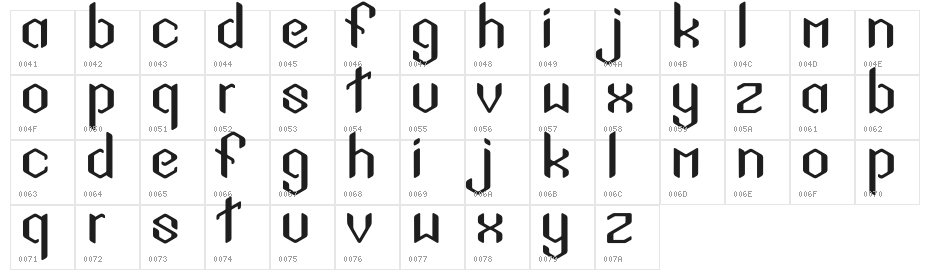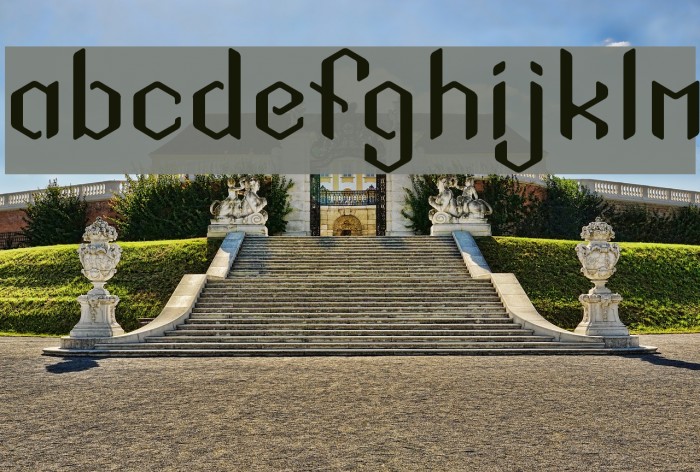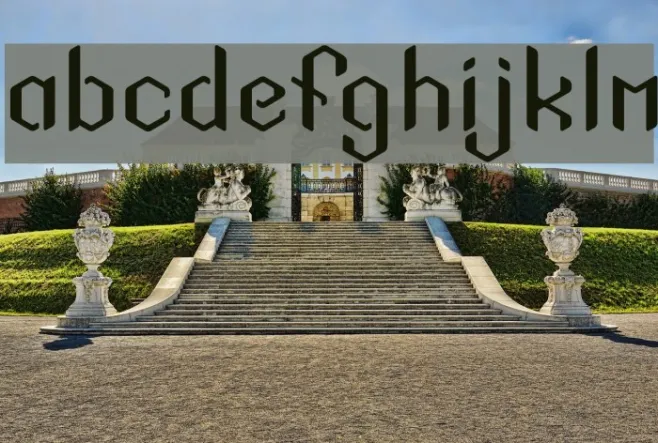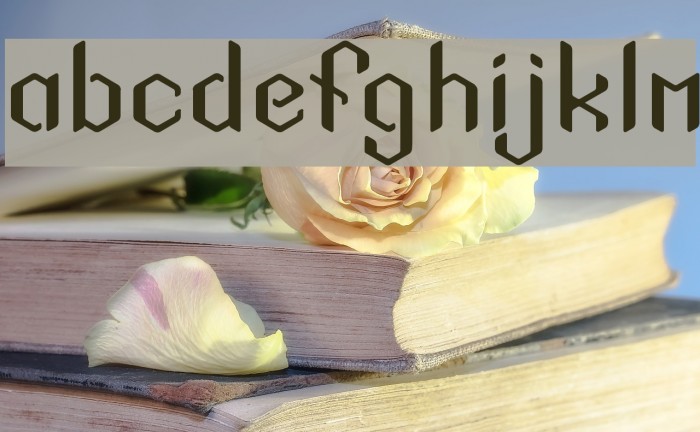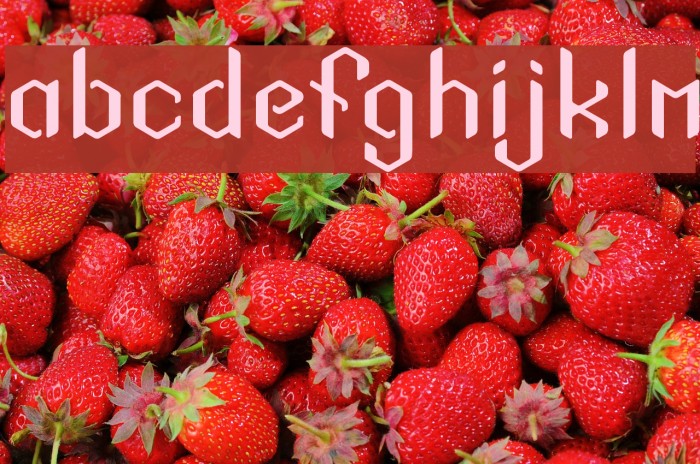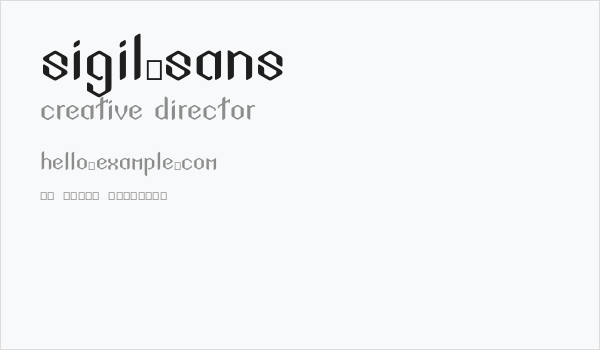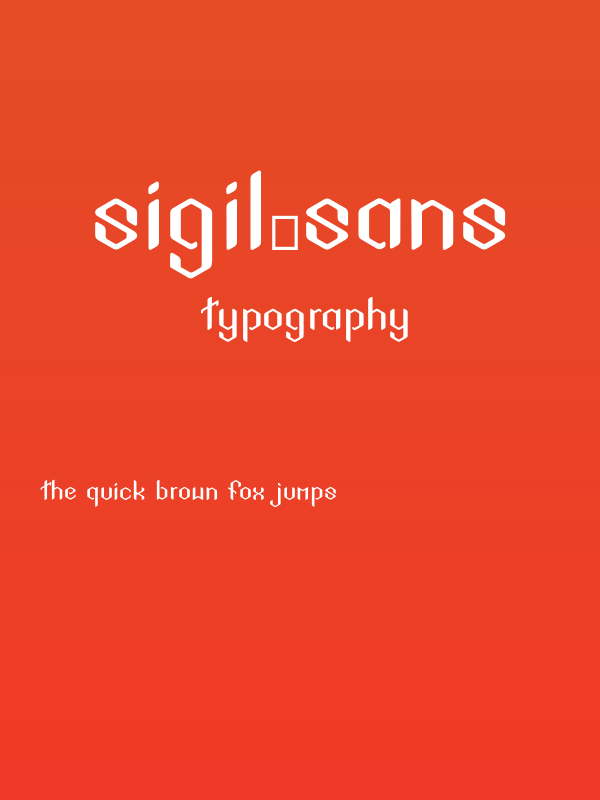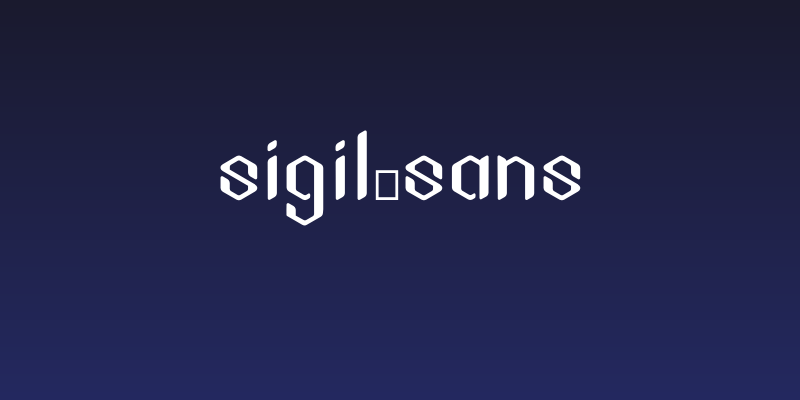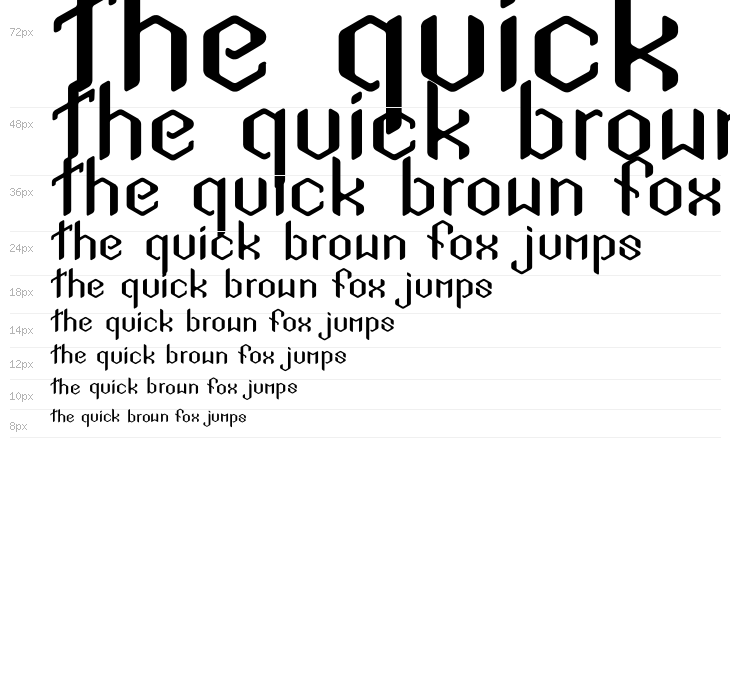
Sigil_Sans Font
Sigil_Sans Description
This font features a unique and modern design with angular, geometric shapes that give it a futuristic feel. The characters are constructed with sharp edges and straight lines, creating a distinct and bold appearance. The lowercase letters maintain a consistent height, while the uppercase letters are absent, suggesting a focus on lowercase typography. The font's style is highly decorative, making it suitable for creative and artistic projects. The absence of traditional curves and the presence of angular forms contribute to its striking and unconventional look.
| Use Case | Logos, Posters, Creative Titles |
| Proposed Projects | Ideal for sci-fi themed designs, video game graphics, and modern branding projects. |